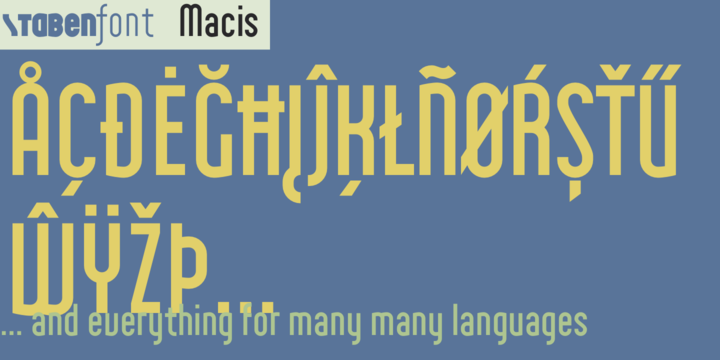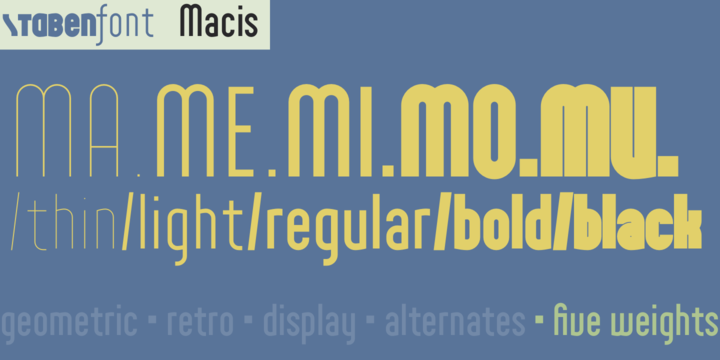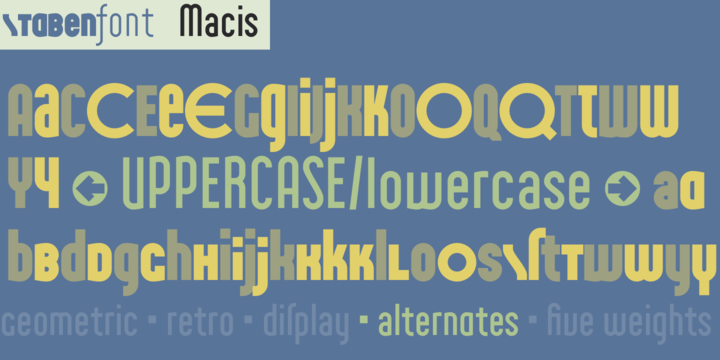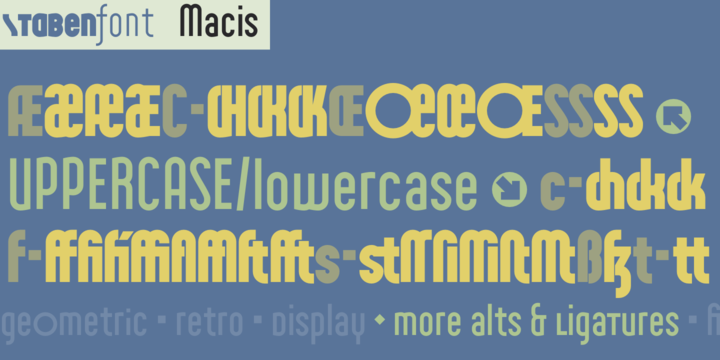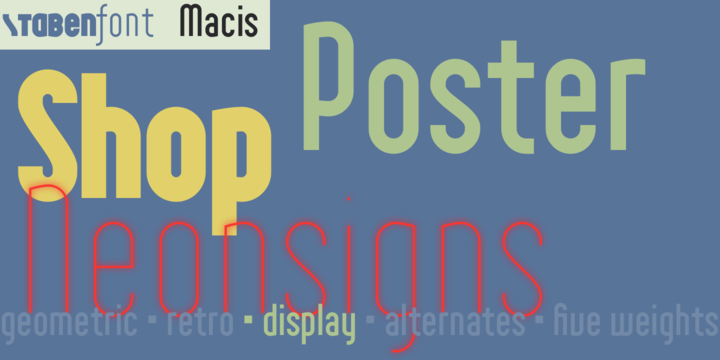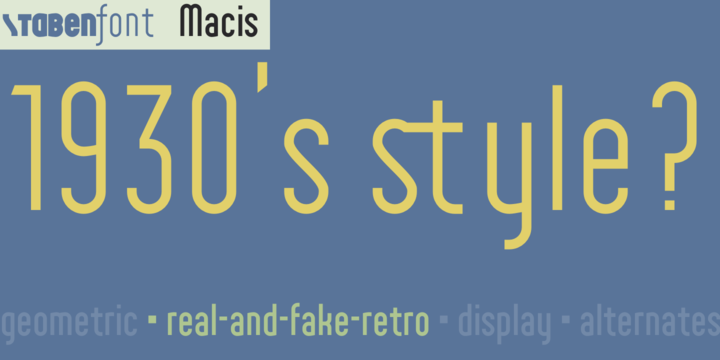
Macis Font Family
Macis is a real-and-fake-retro-modern font-family containing five weights from thin to black. It is inspired by shop signs, packaging and typography from around the middle of 20th century.
Though it is strictly geometrically constructed, it contains some hand-crafted influences as well as some irregularities. Some say, it dances on the baseline, ’cause the bowls and curves reach far out over the stems.
Use it in big sizes, especially the extreme weights!
Macis Thin
Macis Light
Macis
Macis Bold
Macis Black